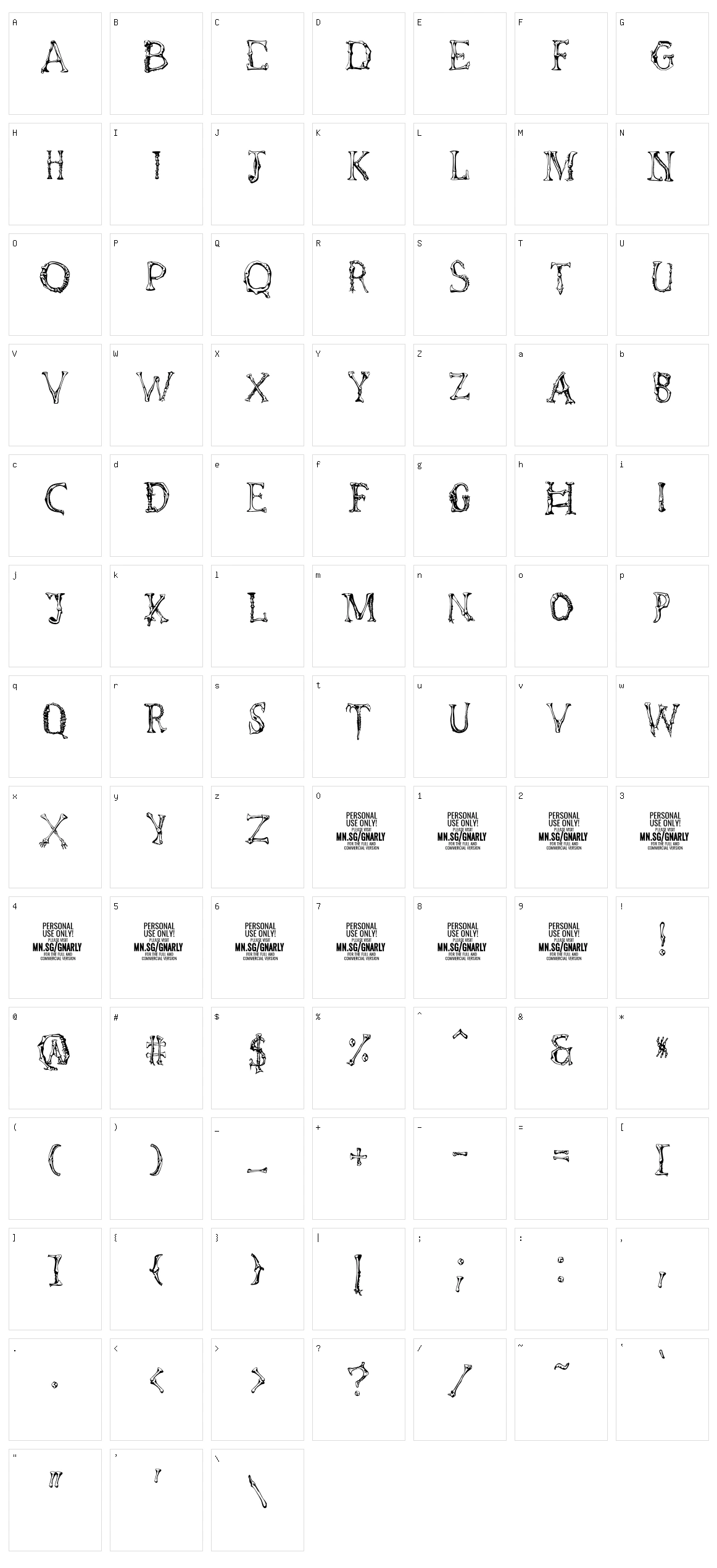
Gnarly Skeleton presents a chilling yet enthralling spectacle in the realm of typeface design. With characters composed of intricately interlocking skeletal fragments, it exudes an ominous aura that is as captivating as a midnight thriller. This font is the perfect choice for Halloween party invitations or eerie book covers, adding an air of mystery and foreboding that teases the darker corners of imagination.
Use the currency symbol ¤ to make a skull.
Example: haLl¤weEn
Use multiple to make different skulls.
Example: ¤¤¤¤¤Darkness¤¤¤¤
Mans Greback, the designer behind the Gnarly collection, holds a vast portfolio of innovative typography. He showcases a fusion of tradition with contemporary flair, and the Gnarly series stands as yet another testament to his craftsmanship and creative vision.